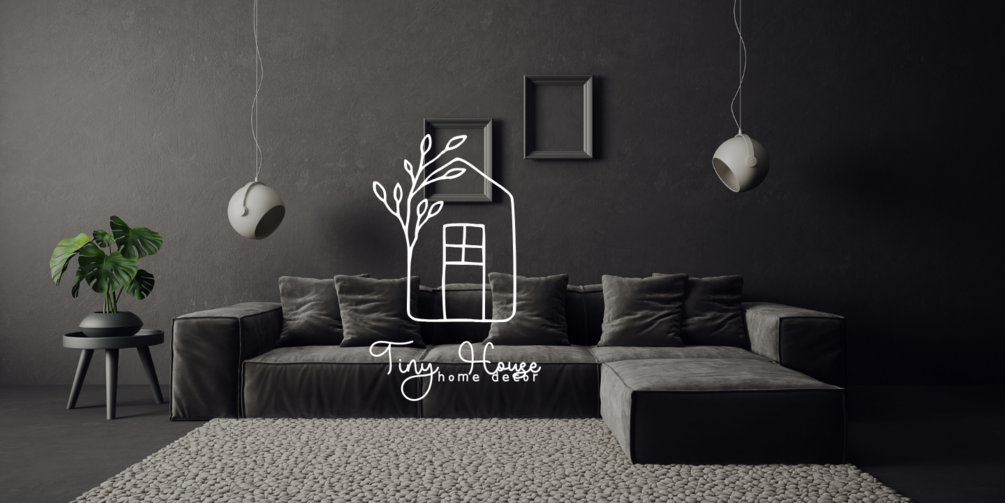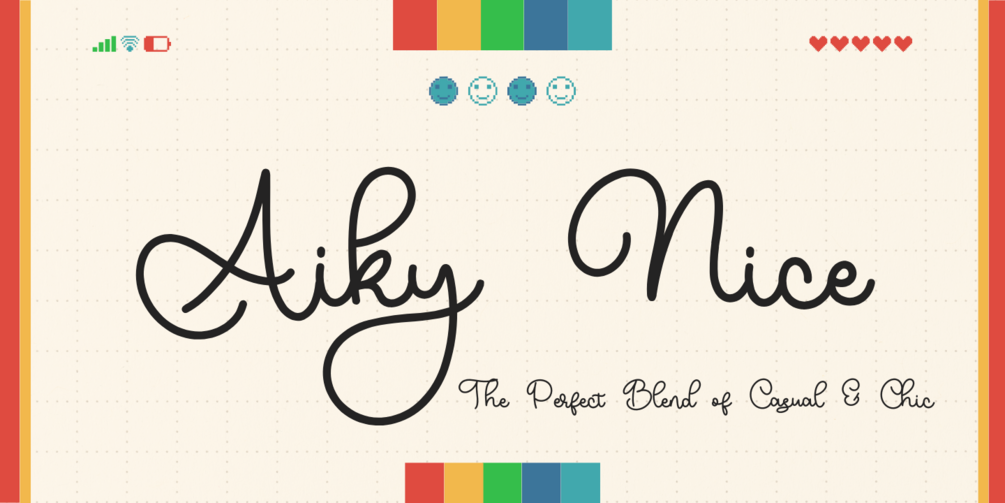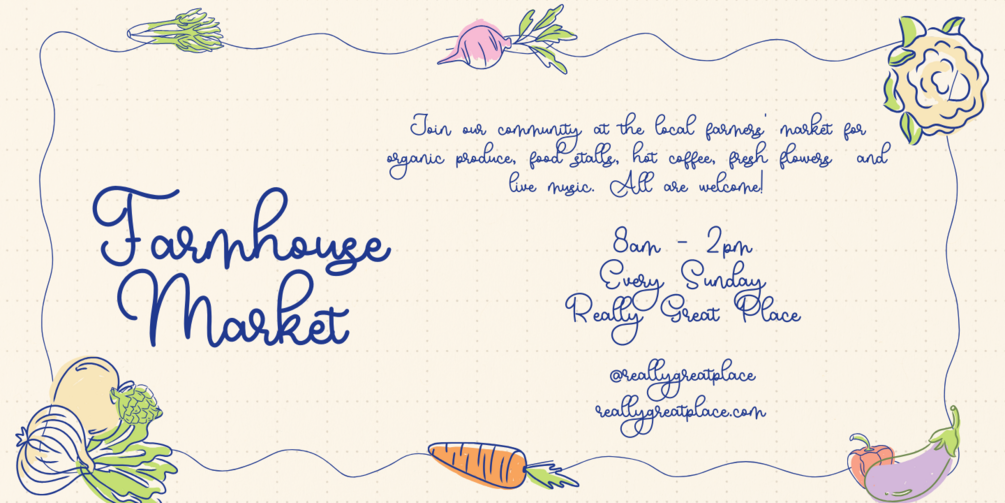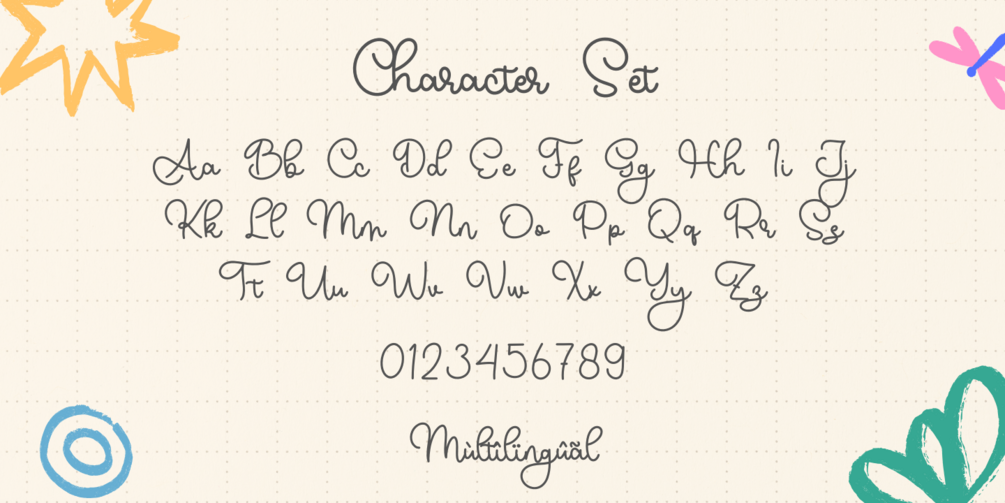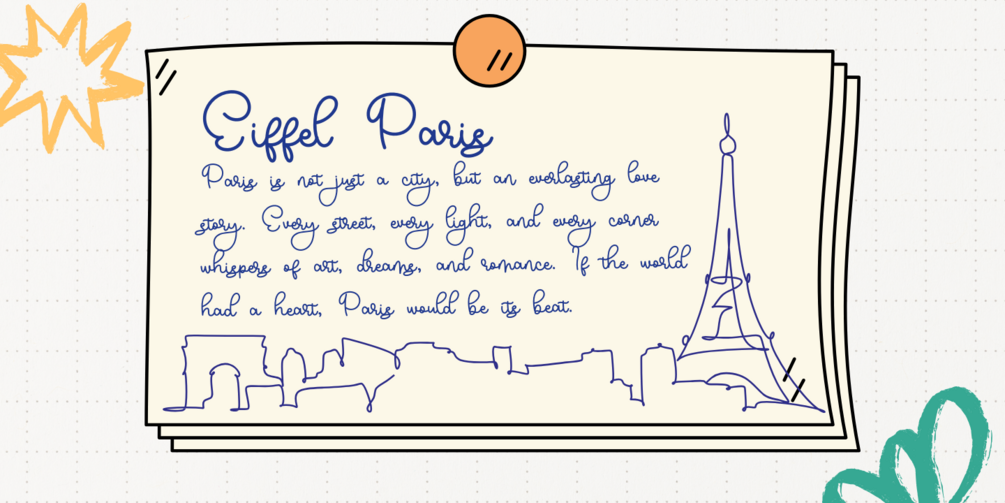
Aiky Nice
Looking to add a touch of charm and joy to your designs?
Aiky Nice is a delightful monoline script font featuring playful balloon-themed alternates. With its smooth and flowing strokes, Aiky Nice combines the elegance of calligraphy with the fun and inviting spirit of balloons, making it perfect for a wide range of creative projects.
Whether you're designing branding, invitations, or personal projects, Aiky Nice brings warmth, playfulness, and personality to any creation. Its unique alternates, adorned with adorable balloon-like details, add a cheerful and lighthearted touch to your typography.
✨ Playful monoline script with charming balloon-inspired alternates
✨ Smooth, flowing strokes that combine elegance with fun
✨ Perfect for branding, invitations, quotes, posters, home décor, and more
✨ Ideal for special events, logos, packaging, mugs, t-shirts, business cards, and photography
🎨 Let Aiky Nice infuse your designs with joy and personality, making every project stand out with playful elegance!